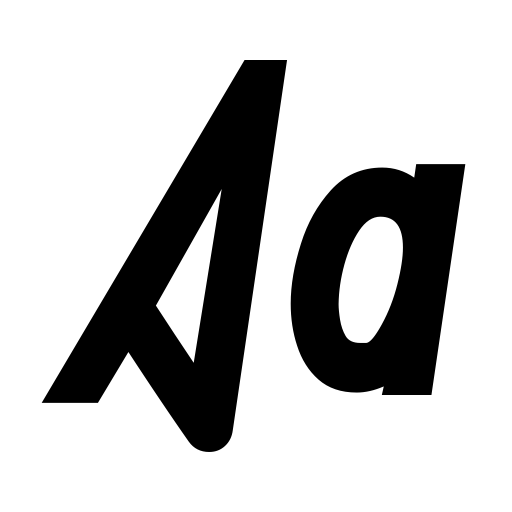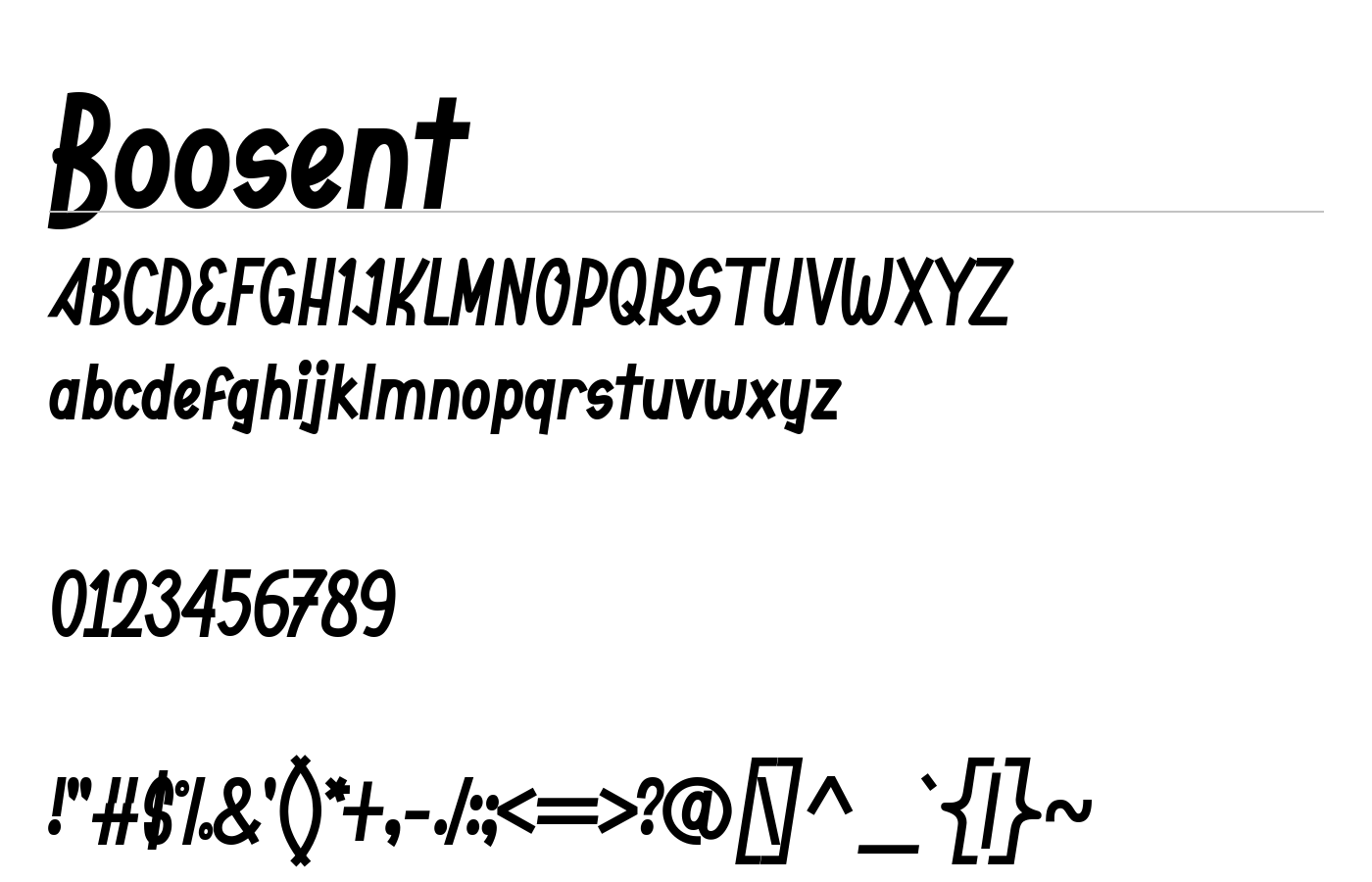
Boosent is a condensed, sans serif font with a playful and dynamic personality, characterized by its slightly italicized, sharp-edged letterforms and uneven stroke weights. Its distinctively angled characters and quirky shapes give it an energetic, informal feel, making it ideal for eye-catching headlines, creative branding, or designs that want to convey a fun and modern vibe. This font works well where a bold yet lively impression is needed, such as in posters, logos, or trendy editorial layouts.
Boosent Font
About Boosent Font
| Font family | Boosent Font |
| Designer | Kelik; Dani; Situjuh Nazara |